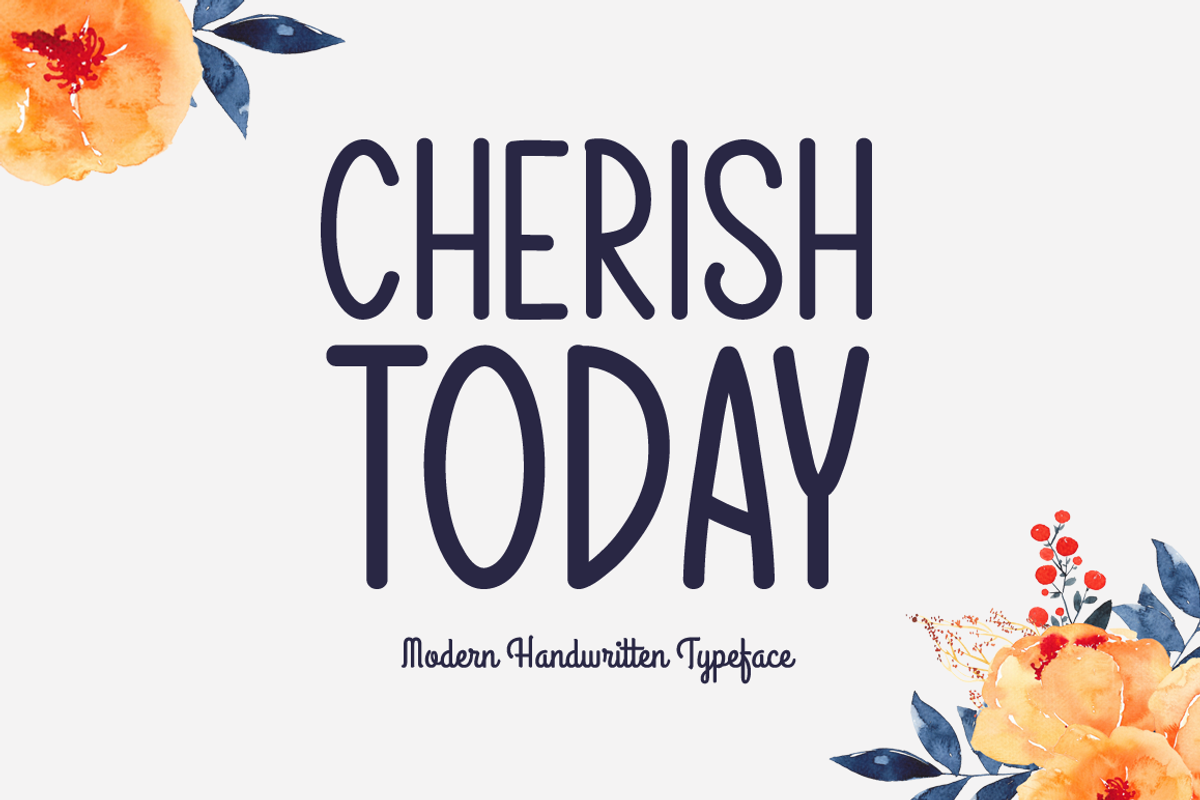
Cherish Today Typeface Free Download is a beautiful and elegant typeface designed to bring a sophisticated, handcrafted feel to your designs. With its graceful curves and flowing letterforms, this font is perfect for creating logos, invitations, branding, and social media content that require a personal touch. Its unique and refined style adds a sense of luxury and warmth to any project, making it ideal for wedding invitations, boutique brands, and lifestyle designs. Whether you’re designing for a high-end brand, crafting personalized stationery, or creating a special event invitation, Cherish Today Typeface Free Download lets you explore its beauty in personal projects before purchasing a commercial license. Add a touch of elegance and charm to your designs with this stunning typeface.